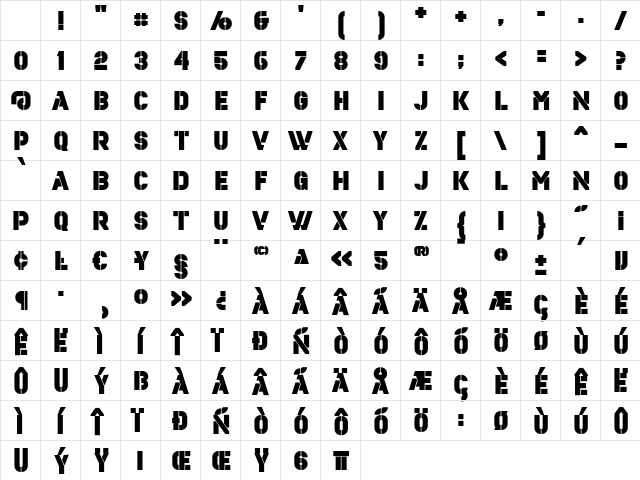
Complete Estenceler SemiBold glyph index. Displaying only characters natively supported by Estenceler SemiBold font.
Estenceler is a composed and adaptable typeface that performs quietly and consistently across a wide range of design contexts. Its bold stroke weight gives it real presence on the page.